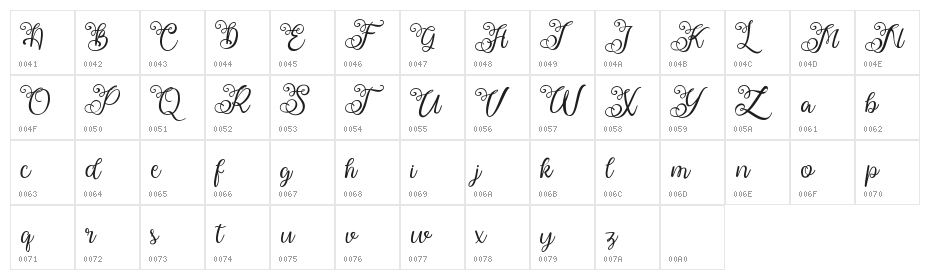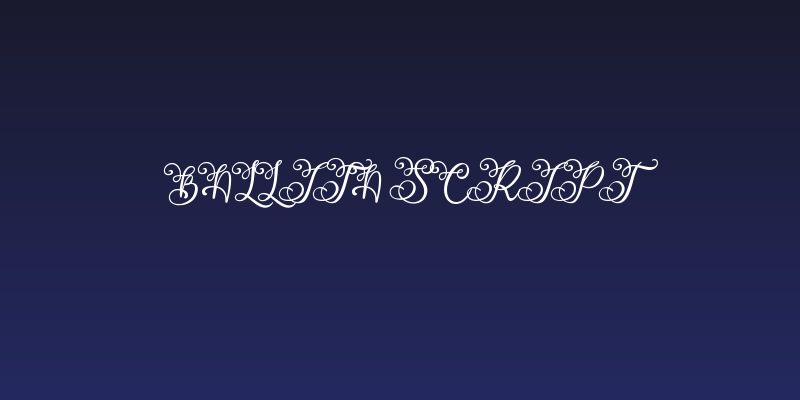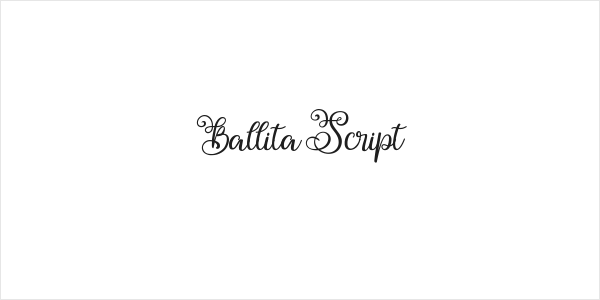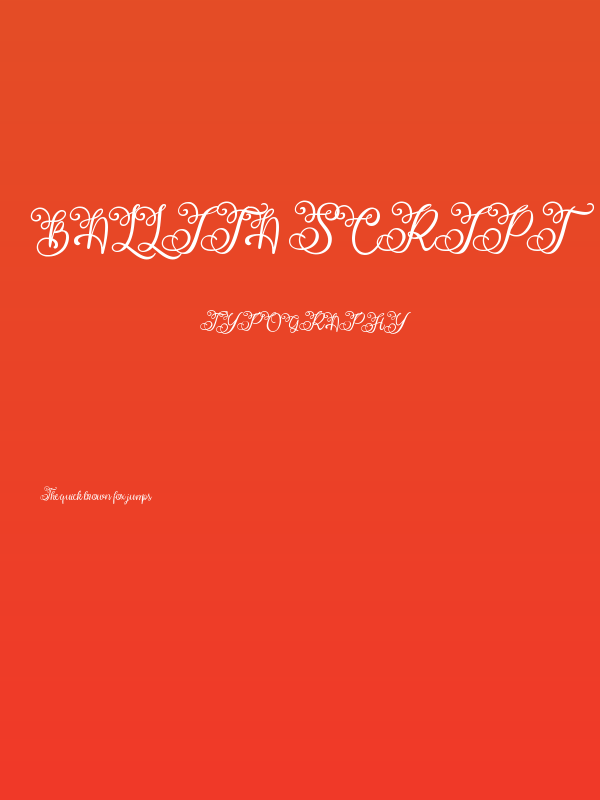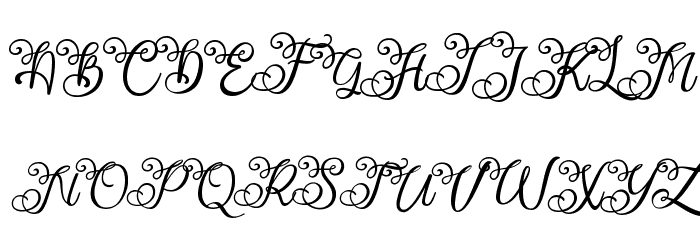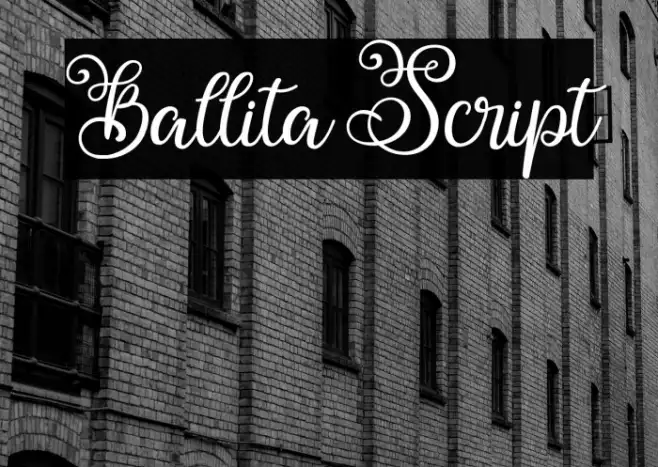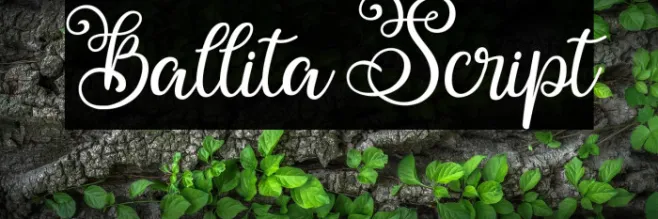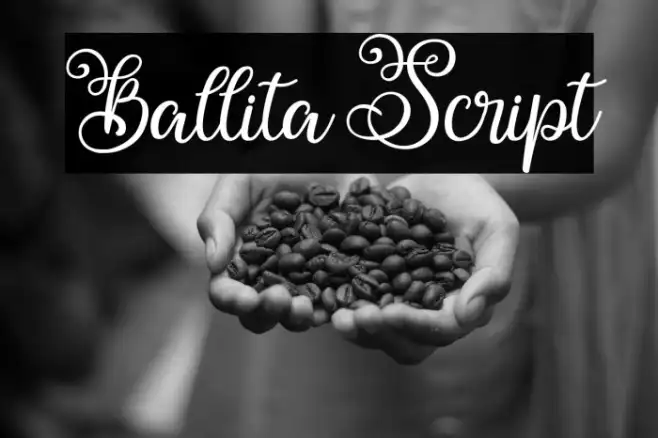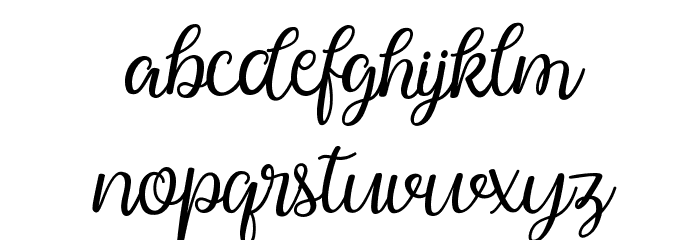
Ballita Script Font
Ballita Script Description
This font exudes elegance and sophistication with its intricate and flowing script style. The uppercase letters are adorned with elaborate swirls and flourishes, giving them a decorative and ornamental appearance. The lowercase letters maintain a smooth and connected cursive form, enhancing readability while retaining a stylish flair. The overall design is reminiscent of classic calligraphy, making it suitable for formal and artistic applications. The font's delicate curves and loops create a sense of movement and grace, perfect for adding a touch of refinement to any project.
| Proposed Projects | Ideal for wedding invitations, elegant branding, greeting cards, and decorative headings. |